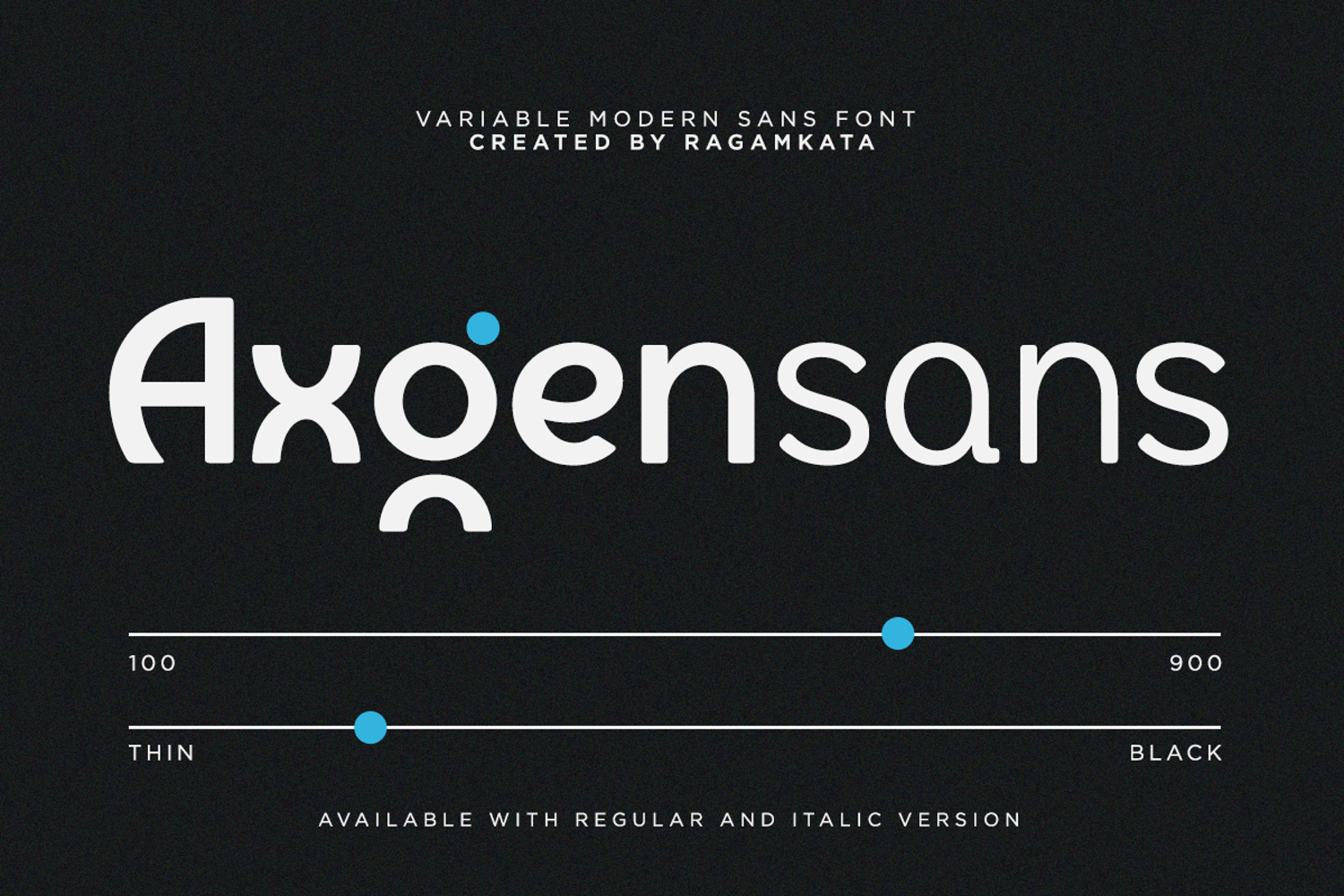
Axgensans - 9 Variable Modern Sans Font
Axgensans is a sleek, modern typeface crafted for elegant branding and premium design projects. Its refined and balanced letterforms offer a contemporary yet enduring appeal, making it ideal for logos, corporate identities, and professional presentations. This font captures the spirit of modern minimalism while preserving a sense of sophistication and luxury.
- 9 Variables ( Thin, Extra Light, Light, Regular, Medium, Semi Bold, Bold, Extra Bold, Black )